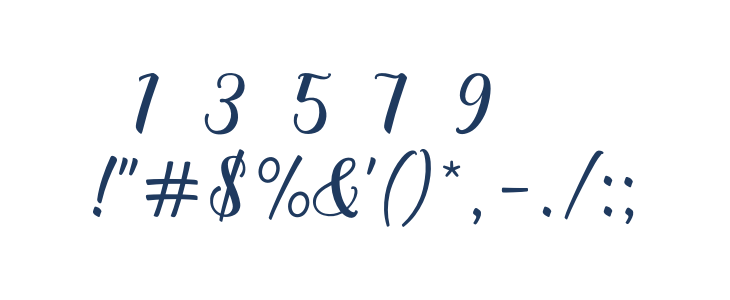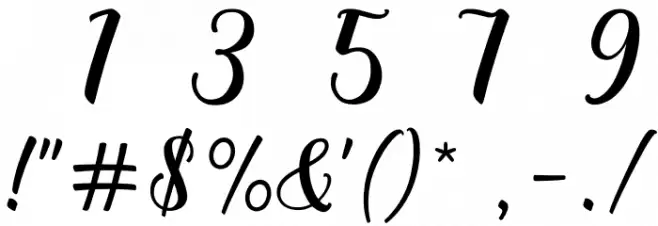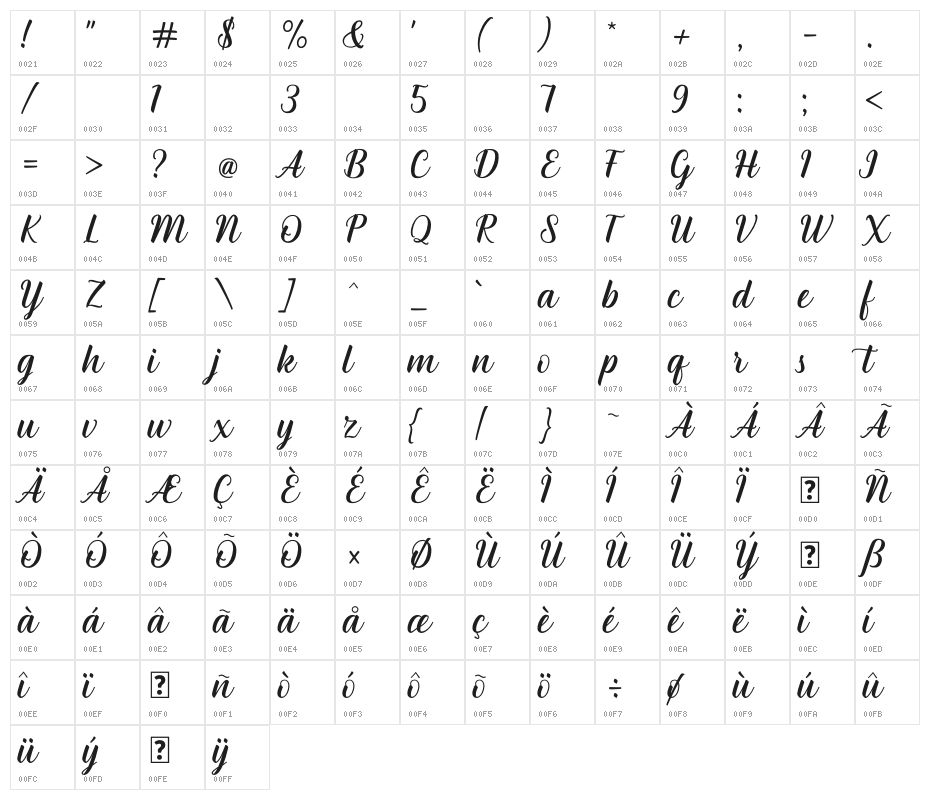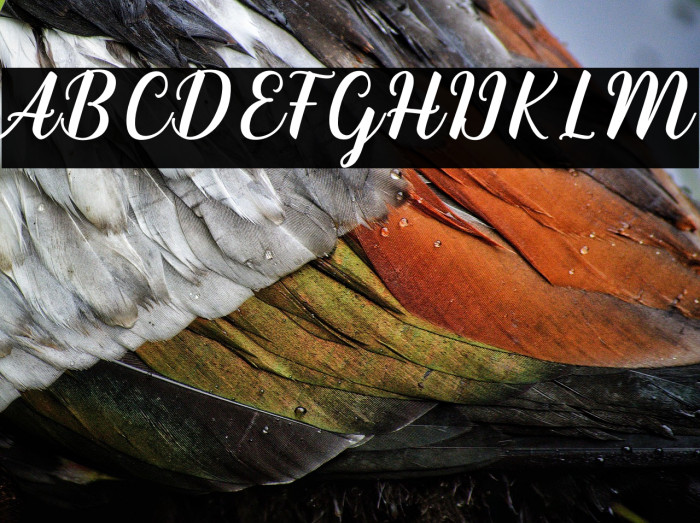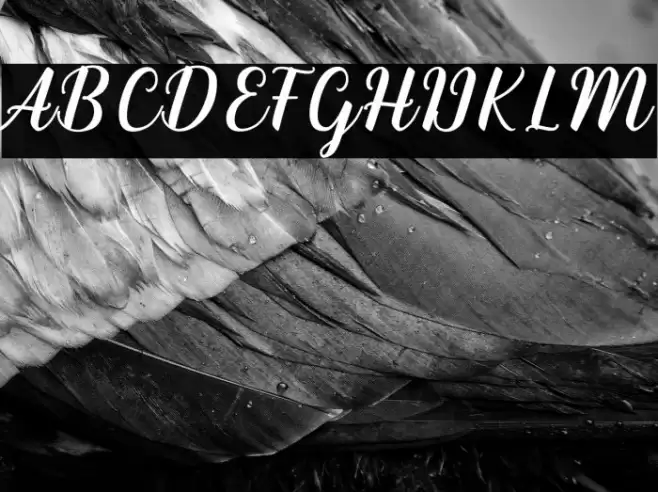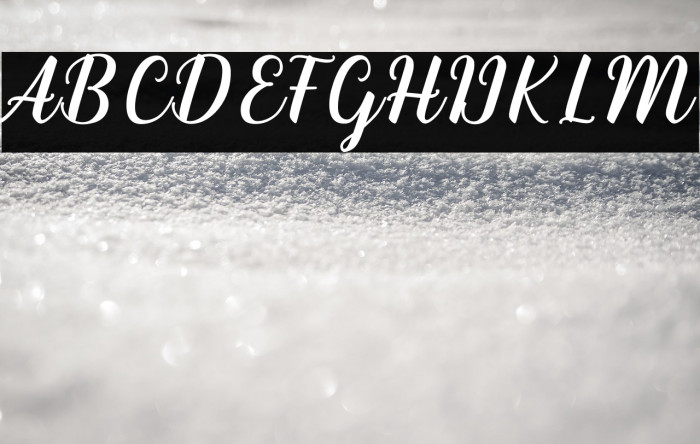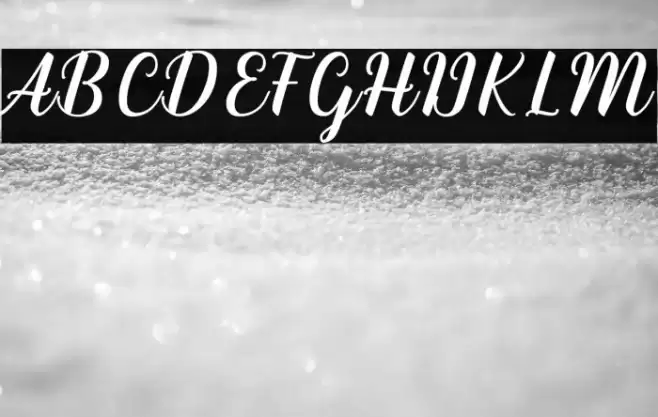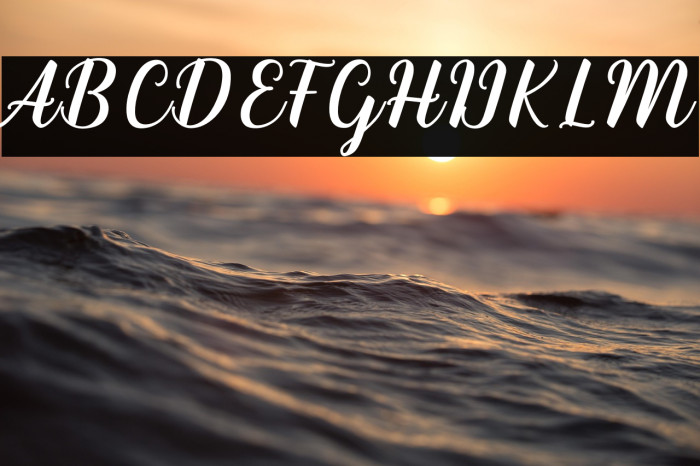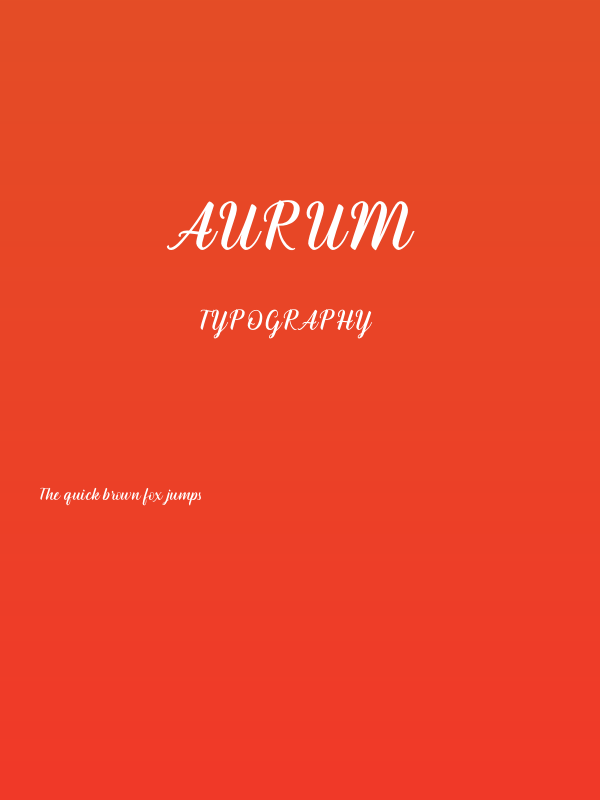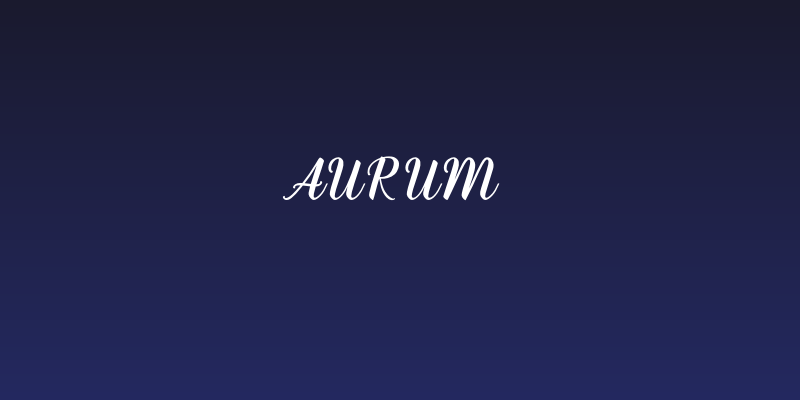
Aurum Font
Aurum Description
This elegant script font features a flowing, cursive style with smooth, rounded edges and a consistent stroke width. The uppercase letters exhibit a graceful, sweeping motion, while the lowercase characters maintain a harmonious balance with their slightly slanted orientation. The numerals and special characters are designed to complement the overall aesthetic, offering a cohesive look across all elements. The font's design is both sophisticated and approachable, making it suitable for a variety of applications where a touch of elegance is desired.
| Proposed Projects | Ideal for wedding invitations, elegant branding, greeting cards, and upscale packaging. |